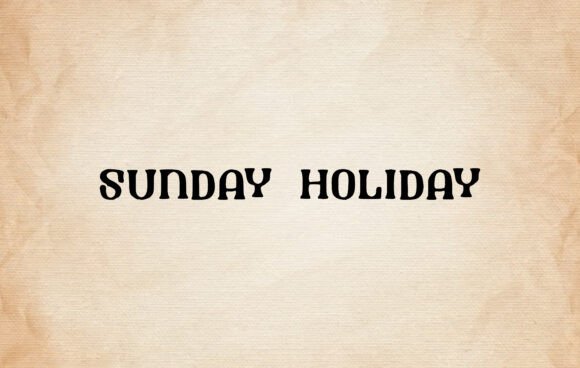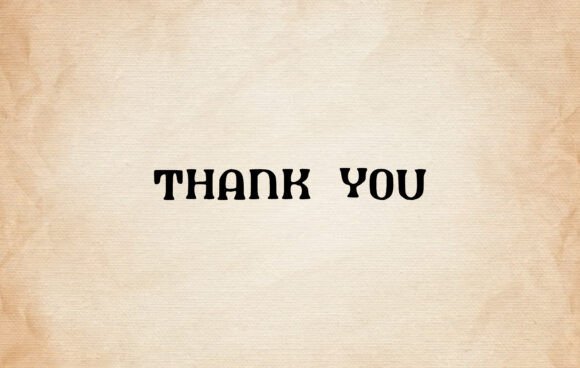
Introducing Endless Font: Elevate Your Creative Projects with Style
Are you tired of using the same old fonts for your creative projects? Look no further than Endless Font, expertly designed to be a true favorite among designers and crafters. This versatile font has the potential to take your ideas to new heights, offering a perfect blend of legibility and style.
What Makes Endless Font Stand Out?
Endless Font is more than just a typeface; it’s a tool to unlock your creative potential. Its design ensures that it looks great whether used as a title or body text, making it incredibly versatile for various projects. From magazine headlines to t-shirt designs, social media posts, branding, wedding invitations, cards, and more, Endless Font is the perfect choice for any creative endeavor.
Key Features of Endless Font
- Legibility: One of the standout features of Endless Font is its exceptional legibility. Even at smaller sizes, it remains clear and easy to read, making it ideal for body text.
- Versatility: Whether you’re designing a bold headline or writing a detailed paragraph, Endless Font adapts seamlessly, offering a consistent look and feel across your project.
- Aesthetic Appeal: With its expertly crafted design, Endless Font adds a touch of elegance and sophistication to any project. Its unique style ensures that your work stands out from the crowd.
Applications of Endless Font
The possibilities are endless with Endless Font. Here are some of the many ways you can use this versatile typeface:
- Magazine Headlines: Create eye-catching titles that draw readers in. Endless Font’s unique style is sure to make your magazine stand out on newsstands.
- T-Shirt Designs: From casual tees to custom merchandise, Endless Font is perfect for creating memorable and stylish designs.
- Social Media: Elevate your social media presence with professional-looking posts and stories. Endless Font helps you maintain a consistent brand image across all platforms.
- Branding: Establish a strong brand identity with Endless Font. Its distinctive look can help you build a recognizable and memorable brand.
- Wedding Invitations and Cards: Add a touch of elegance to your wedding invitations, greeting cards, and other personal stationery with Endless Font’s sophisticated design.
Why Choose Endless Font?
In a world where first impressions matter, having a font that can elevate your project is invaluable. Endless Font offers:
- Professional Look: Instantly give your projects a professional look that sets you apart from the competition.
- Time-Saving: With its versatility and legibility, Endless Font saves you time and effort in choosing and pairing fonts for different parts of your project.
- Creative Freedom: The unique design of Endless Font inspires creativity, allowing you to experiment with various design elements and ideas.
Endless Font is more than just a typeface; it’s a creative tool designed to bring your ideas to life. Its legibility, versatility, and aesthetic appeal make it an essential asset for designers and crafters looking to elevate their projects. Whether you’re working on a magazine, t-shirt, social media post, or any other creative endeavor, Endless Font is the perfect choice. Unlock your creative potential and make your mark with Endless Font.